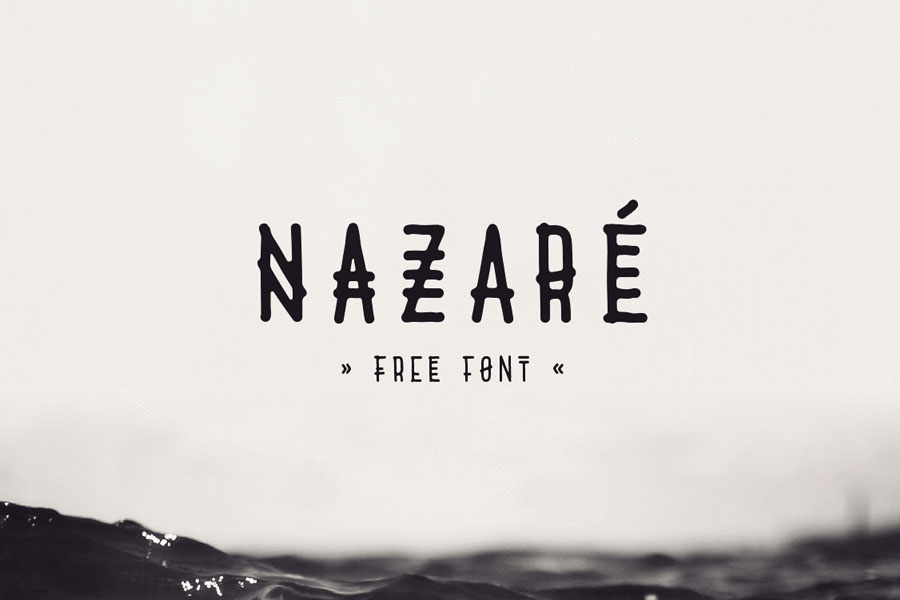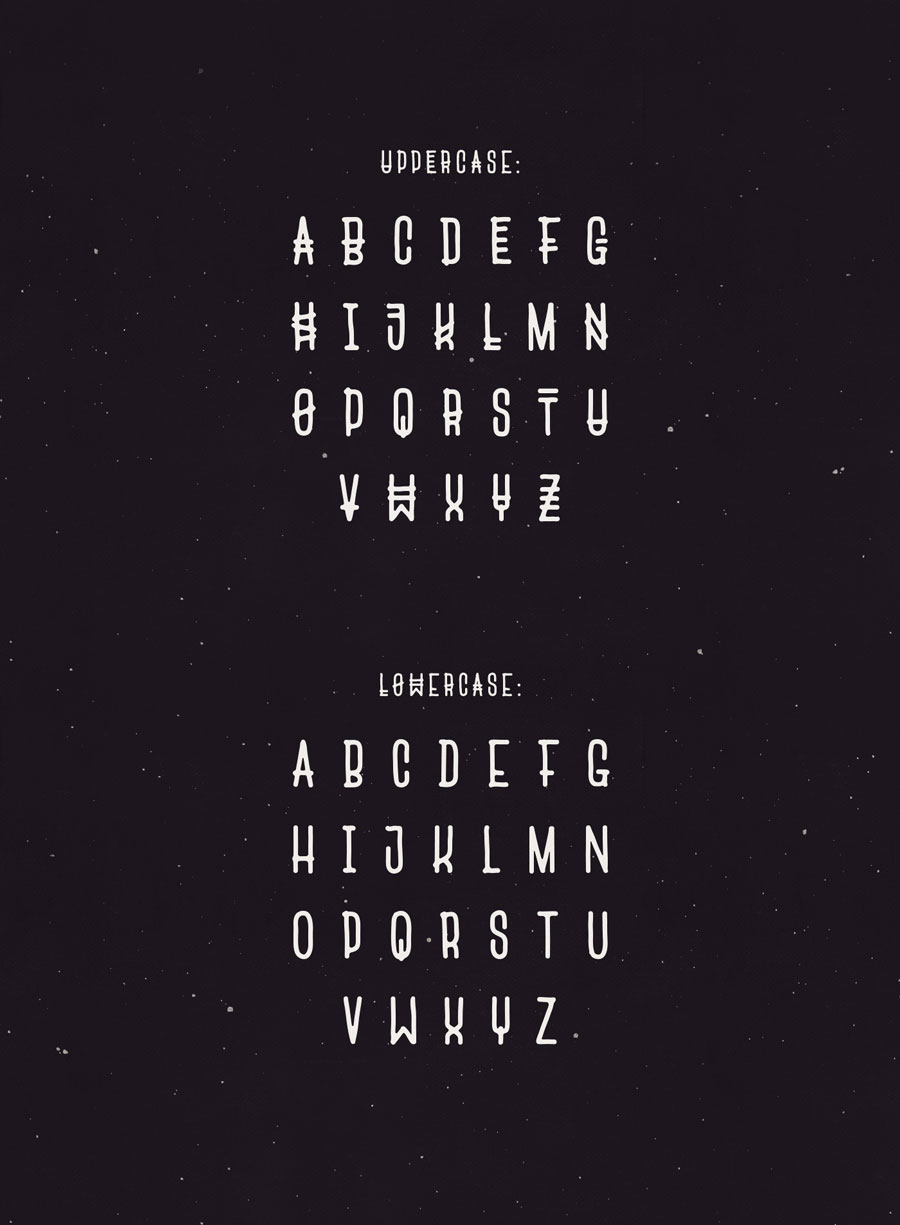
Nazaré is a free font inspired by the town of the same name in Portugal. It’s a hand drawn font consisting uppercase condensed font, with added touch of tribal. The uppercases are harder to read as it was added with extra lines to give more uniqueness to it, while typing with the lower case with generate conventional uppercases.
- Designer: David Szebenyi
- Category: Handwriting